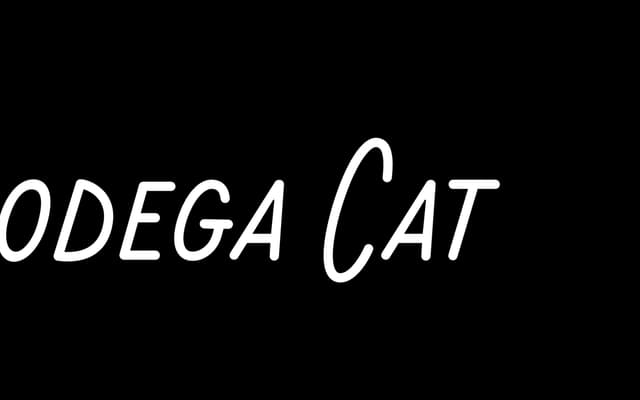
Bodega Cat
A mono-line handwritten typeface with oversized capitals and cursive alternate glyphs for informal display use.
Drawn as a single-weight, mono-line script, it pairs slim regular letterforms with oversized capitals that give the family its distinctive rhythm. Cursive alternate glyphs for the capitals allow designers to vary the feel within a single setting. Best suited to packaging, branding and display work where an approachable, hand-drawn quality is wanted.
Described explicitly as a hand written, mono-line typeface; the casual, informal letterforms and cursive alternate capitals place it firmly in the casual handwritten script subcategory.